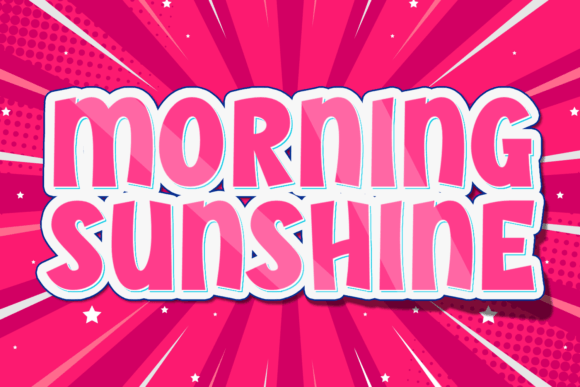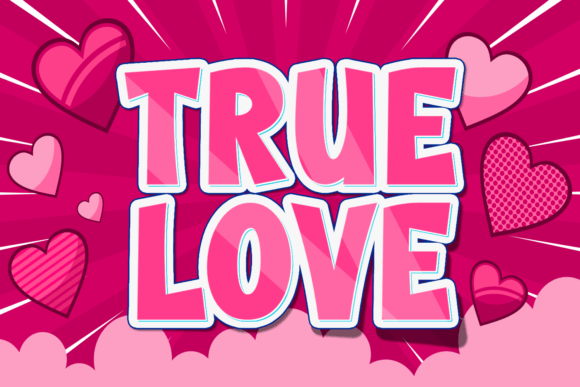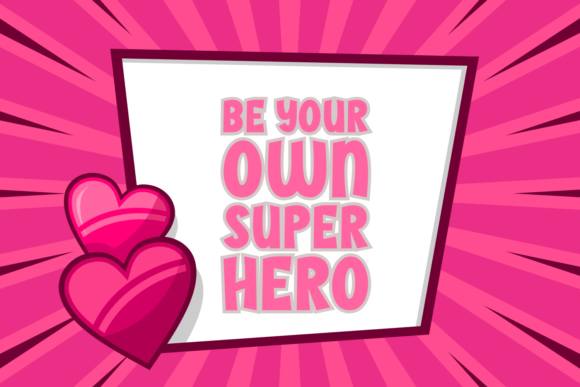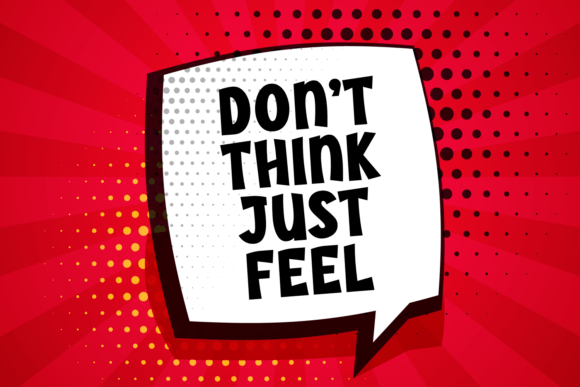
Enter Beat Hero Font, a charming comic display font designed to make your text stand out. With its thick, bold, and playful letters, Beat Hero Font is perfect for exciting stories and colorful artwork. Whether you’re a seasoned designer or a newcomer to the world of typography, this font is sure to bring a touch of whimsy and personality to your projects.
Beat Hero Font Key Features
- Font Family: Beat Hero Font is a sans-serif font family designed specifically for video games and digital applications.
- Size: The font family includes 6 weights, ranging from Thin (100) to Black (900), with corresponding italic styles.
- Resolution: The font is designed for high-resolution displays and supports resolutions up to 4K (3840 x 2160 pixels).
- Unique Characteristics: Beat Hero Font features a bold, modern design with a unique pixel-perfect aesthetic, making it ideal for video game menus, HUD elements, and digital signage.
- Font Metrics: The font family includes a comprehensive set of font metrics, including kerning pairs, ligatures, and stylistic sets, for precise control over typography.
Beat Hero Font Review
Overall, I think the Beat Hero Font is a decent choice for those looking for a bold and energetic sans-serif font. ✨ It has a unique design that effectively captures the essence of electronic music, which is perfect for music-related projects or even titles for music festivals. The font’s rounded edges and geometric shapes give it a futuristic feel that’s quite eye-catching.
The font comes in a variety of weights, from light to heavy, making it suitable for a range of applications. The light weights work well for titles and headings, while the heavy weights are great for emphasis and emphasis text. ✨ The font is also highly legible, even at small sizes, making it a good choice for mobile applications or small print materials.
- Unique design that effectively captures the essence of electronic music
- Variety of weights to suit different applications
- Highly legible, even at small sizes
- May not be suitable for traditional or conservative designs
- Some users may find the font too bold or overwhelming
- Limited language support
- ⚠️ The font may not be ideal for long blocks of text due to its condensed design
Overall, the Beat Hero Font is a great choice for those looking for a bold and energetic font for music-related projects or modern designs. While it has its limitations, it’s a solid option that’s sure to grab attention.
Beat Hero Font: A Practical Application Guide
Beat Hero Font is ideal for use in music-related designs, such as concert posters, album artwork, and music blogs. It’s also great for use in gaming and technology-related designs. To get the most out of the font, use it in bold and italic styles to add emphasis to your text.
Alternatives to Beat Hero Font
Fontin is a sans-serif font designed by Carlos Fabra. It is a highly readable font with a unique feel, making it suitable for digital products, magazines, and books. Fontin is more versatile and has a larger character set compared to Beat Hero Font, but it may not have the same level of stylization.
Montserrat is a sans-serif font designed by Julieta Ulanovsky. It is a geometric font with a strong, modern feel, making it suitable for digital products, signage, and corporate branding. Montserrat is more modern and has a larger character set compared to Beat Hero Font, but it may not have the same level of stylization.
Source Sans Pro
Source Sans Pro is a sans-serif font designed by Paul D. Hunt. It is a highly readable font with a clean, modern feel, making it suitable for digital products, web design, and corporate branding. Source Sans Pro is more modern and has a larger character set compared to Beat Hero Font, but it may not have the same level of stylization.
Beat Hero is a sans-serif font, designed to provide clear and concise typography in a wide range of applications. Its clean lines and modern aesthetic make it an ideal choice for digital and print designs.